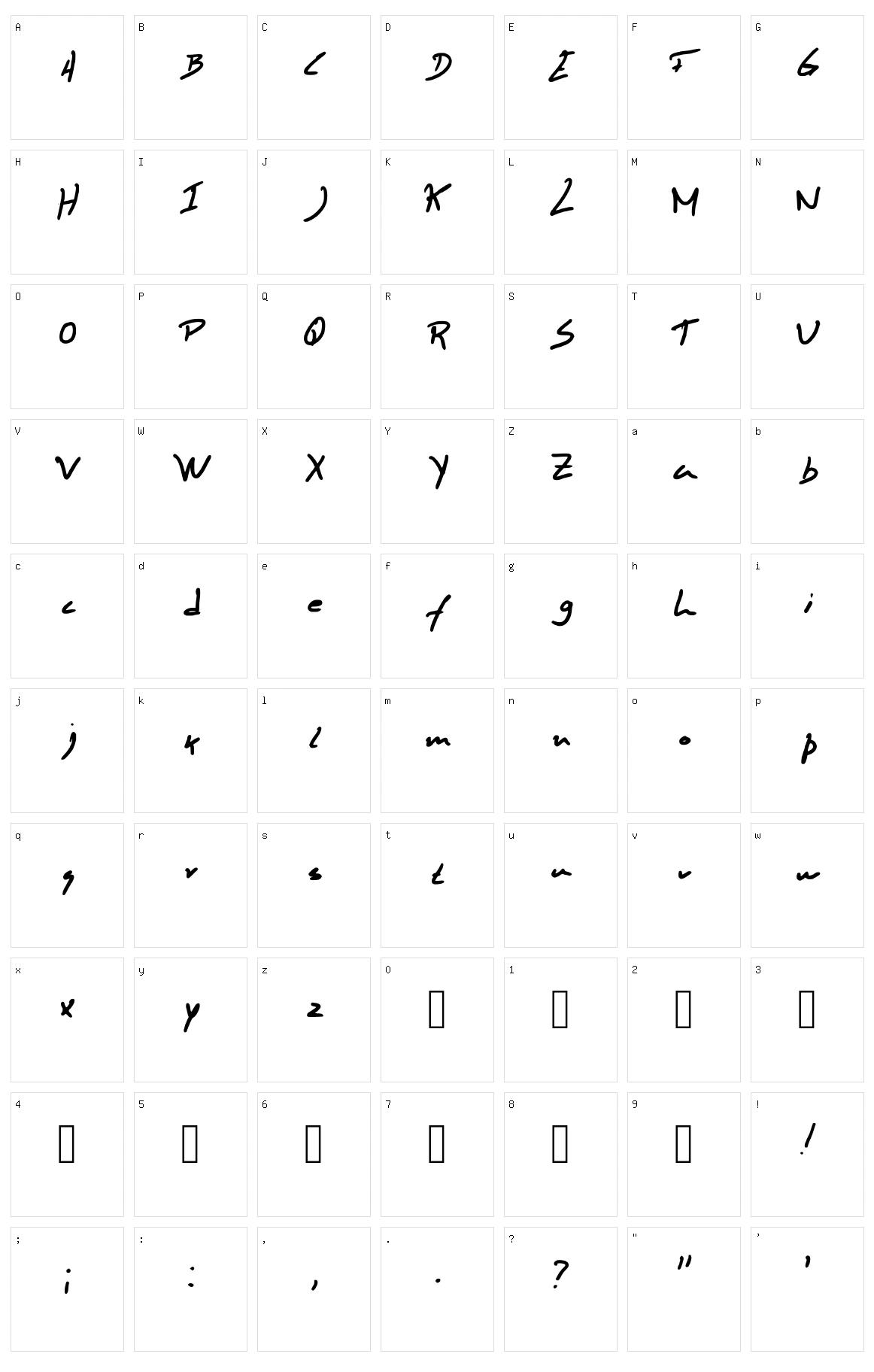
The free font Marco handwrite is carefully designed by Andreia Coelho, showcasing a thoughtful balance of creativity and usability and falls under the Script font style. When you download the ZIP file, it contains only 9.9 KB of font files, making it lightweight and quick to download. Please review the license details below to understand permitted usage and distribution rights. If license information is not available, we recommend using this font for personal projects only or contacting the author directly for commercial usage permissions.